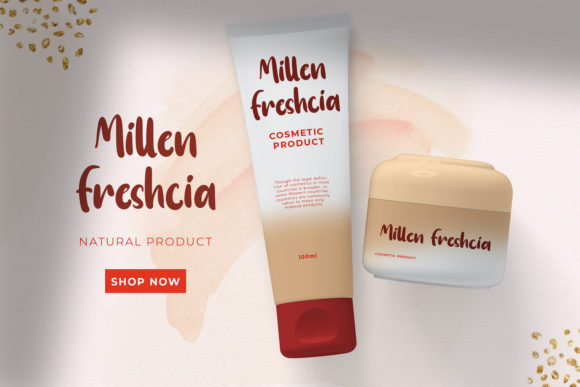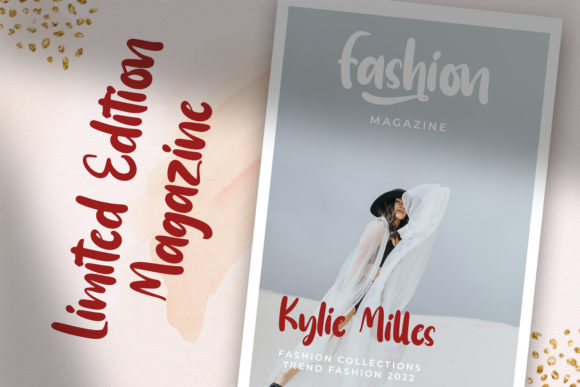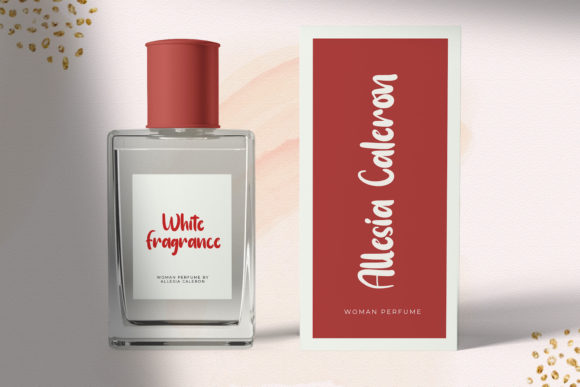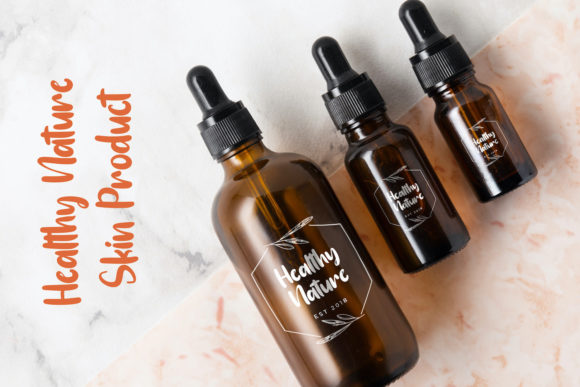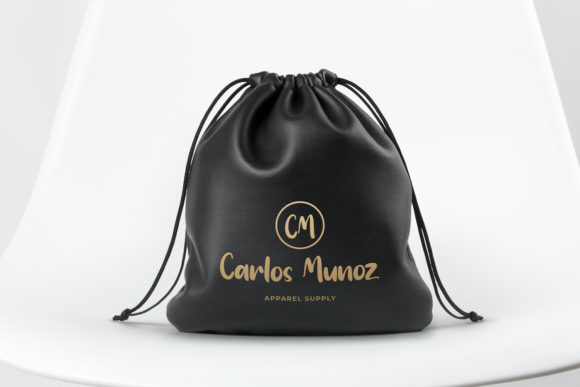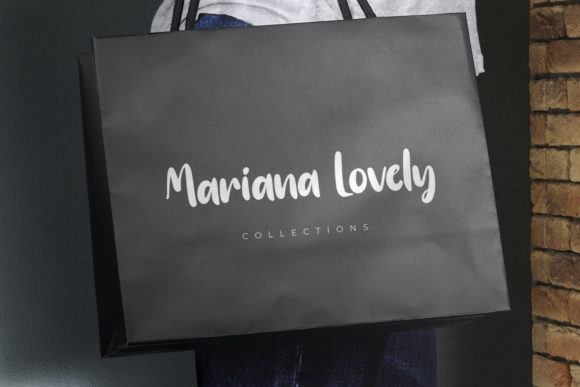
Introduction to Sanju Vony Font
Have you ever been working on a creative project, pouring your heart and soul into it, only to feel like something’s missing? That’s when I discovered the Sanju Vony Font, and it completely transformed my design process. The delicate, elegant, and flowing handwritten style of this font brought my ideas to life in a way I never thought possible.
As a designer, you’re constantly on the lookout for the perfect design resource to elevate your work. The Sanju Vony Font is that game-changing element that can add a touch of sophistication and whimsy to your designs. With its beautiful and well-balanced characters, it’s the perfect addition to any creative project.
Whether you’re working on a design that requires a high-quality, handwritten font or simply want to add some personality to your designs, the Sanju Vony Font is a valuable asset to have in your toolkit. And the best part? It’s available for free download, making it a fantastic resource for designers on a budget or those who want to experiment with different styles.
Key Features of Sanju Vony Font
- High-quality design resource for creative projects, ideal for digital artists and designers.
- Includes 5 unique font styles, each with its own distinct characteristics and design flair.
- Perfect for use in graphic design, logo creation, and other creative projects where a unique and eye-catching font is desired.
Honest Review: Sanju Vony Font
I recently had the chance to work with the Sanju Vony Font and I must say it was a mixed bag for me. On the one hand, I was excited to explore this free download as a design resource for my creative project.
Here’s what I liked about the Sanju Vony Font: ✨ The font is incredibly versatile and can be easily customized to fit different design styles. I also appreciated the fact that it has a transparent background, making it easy to layer and combine with other design elements. Additionally, the high quality of the font ensured that it looked crisp and clear on various screens.
However, there are some limitations to consider: ⚠️ For one, the font is not as extensive as some other options, with a limited range of characters and symbols. This can be a problem if you’re working on a project that requires a lot of special characters or international text support. Additionally, the font’s design is quite playful and may not be suitable for all types of projects, such as formal business documents or academic papers.
Overall, I would say that the Sanju Vony Font is a solid choice for designers looking for a fun and creative font to add some personality to their projects. However, it’s not without its limitations, so be sure to carefully consider your needs before deciding to use it.
- Can be customized to fit different design styles
The Sanju Vony Font is a high-quality, free download design resource that offers a unique and creative touch to any project. With its transparent background, this font is perfect for designers who want to add a stylish and modern feel to their work.
Tips for Getting the Most Out of Sanju Vony Font
Here are a few tips for getting the most out of the Sanju Vony Font:
- Experiment with different font sizes and styles to create a unique look.
- Use the font in combination with other design elements, such as images and graphics.
- Take advantage of the font’s transparent background to create a seamless design.
Common Use Cases for Sanju Vony Font
The Sanju Vony Font is perfect for a variety of creative projects, including:
- Social media graphics and posts.
- Presentations and documents.
- Logos and branding materials.
- Web design and development.